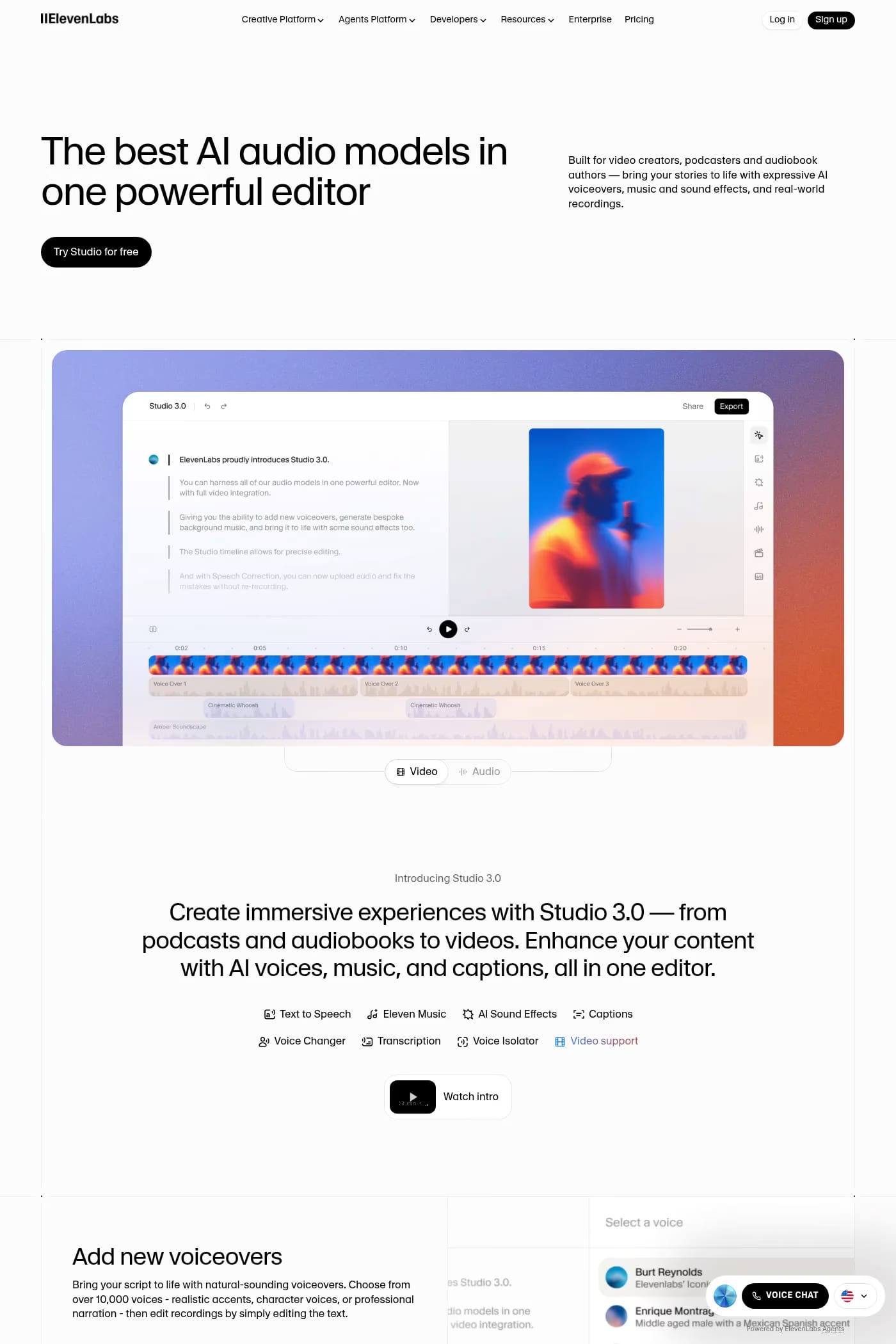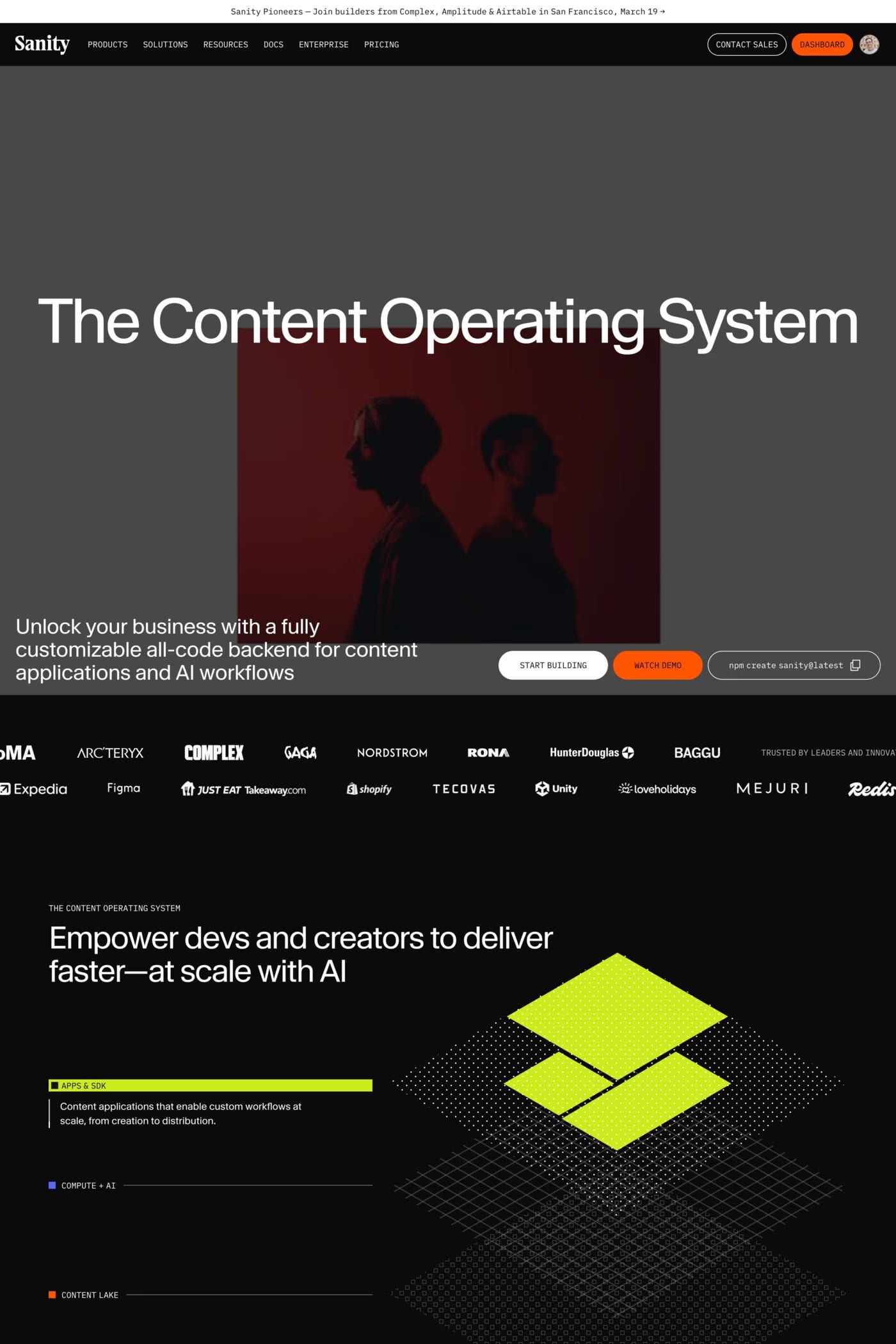
Waldenburg is a display typeface from Kimera.
Waldenburg is a highly sophisticated, carefully drawn sans serif typeface that was specifically designed to be adaptable for all analogue and digital uses w hile still remaining a warm and print-like character. It is a hybrid in many ways: Though it has a strong humanist and organic feel due to the strong vertical contrast and subtle squarishness its shapes still derive from a geometrical and mathematically precise construction.